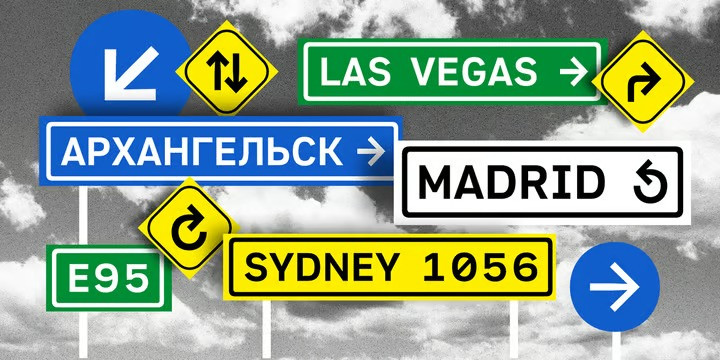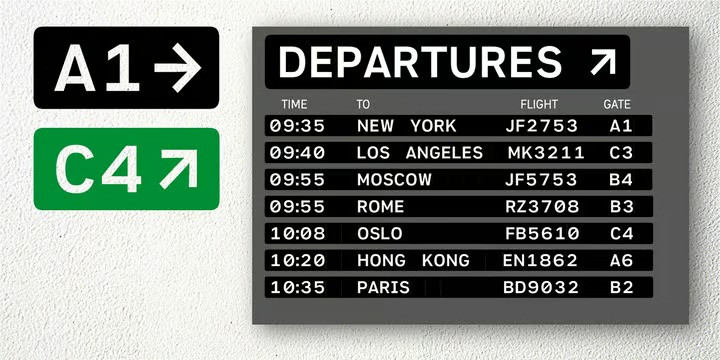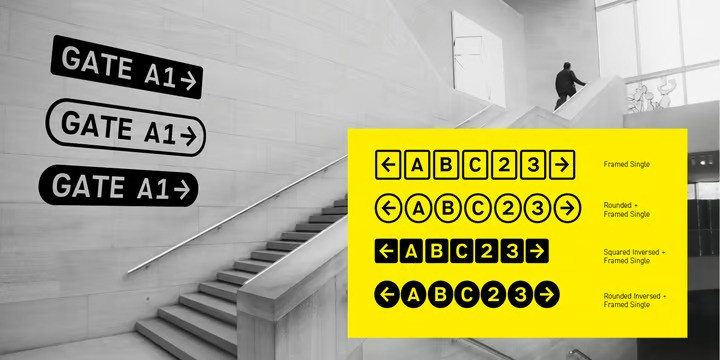
Gate A1 Font
Gate A1 Font is a typeface inspired by the famous DIN, but it is more humane compared to the prototype. Thanks to its straightforward, roughly naive construction and slightly increased letter spacing, the font is quite legible, even under difficult conditions. It makes Gate A1 perfect for road signs and orientation, as well as for interfaces. The typeface supports all European languages, including Greek, and the extended Cyrillic covering all major languages of the peoples of the Russian Federation. In addition, Gate A1 has a functional set of arrows and several alternate sets of figures and graphic elements. The typeface designed by Dmitry Kirsanov was released in 2012 under the name of DIN PT and re-released in 2022 with additions by Alexander Lubovenko.